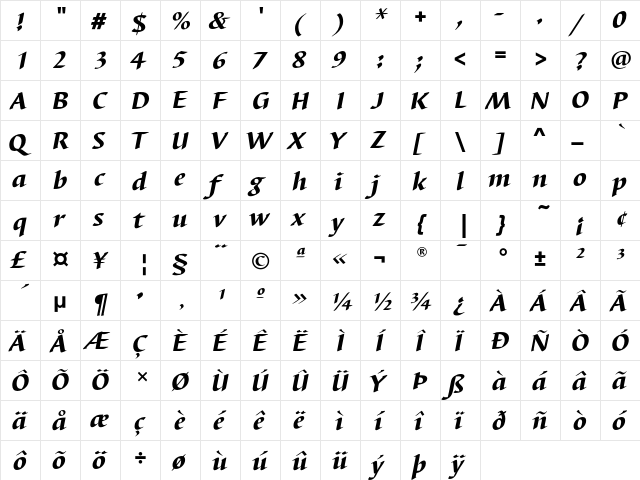
BarbedorEF BlackItalic
Design Context for BarbedorEF Typeface
BarbedorEF takes a measured approach to typography — its balanced proportions and neutral character make it a reliable workhorse for both digital and print work. Its italic angle brings a sense of urgency and motion to the letterforms.
Pro Tip: Use BarbedorEF for emphasis, pull quotes, and subheadings where its slanted energy can add rhythm to the layout.